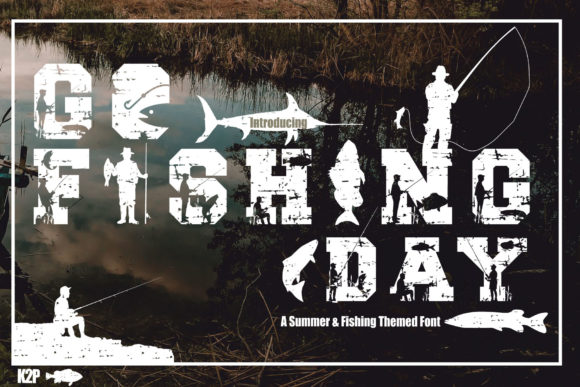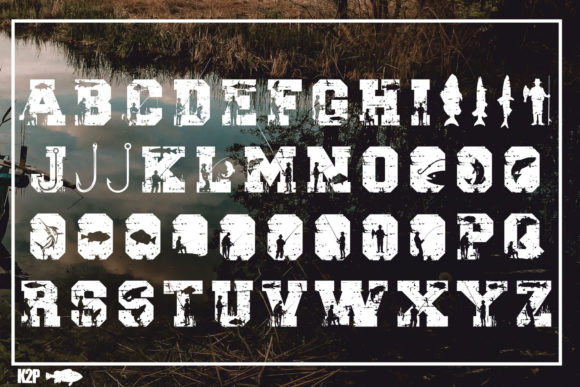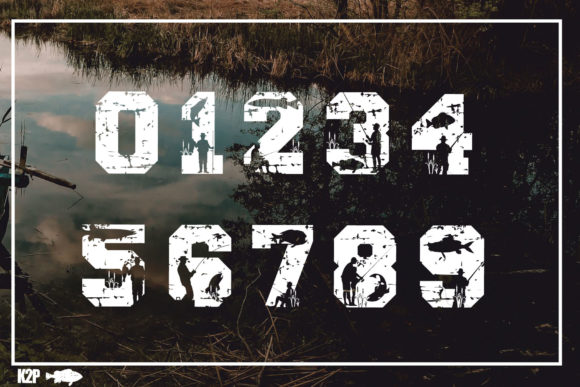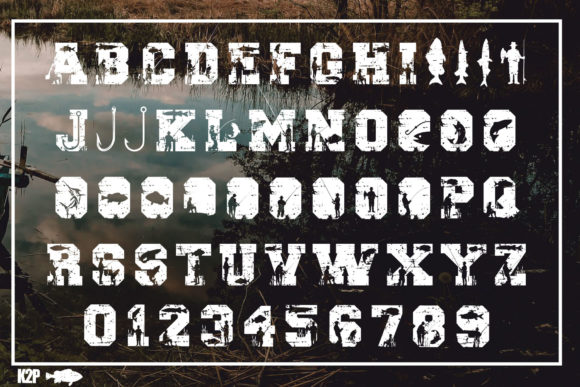
Go Fishing Day Font
The wait is over! The incredible Go Fishing Day Font is now available for your design toolkit. Go Fishing Day is a bold and assertive decorative font. It is perfect for various design ideas related to fishing, camping, or both. Have fun with this beautiful font, and explore its endless variations! This font is PUA encoded, which means you can access all of the glyphs and swashes with ease!
Go Fishing Day’s bold, assertive style makes it ideal for headlines, logos, and short, impactful text on posters or packaging related to outdoor activities. It works exceptionally well for branding projects targeting a rugged, adventurous audience. However, its decorative nature and relatively large x-height make it unsuitable for body text or UI elements requiring high readability.
Consider pairing Go Fishing Day with a clean sans-serif like Open Sans for body copy to create a strong contrast. For a more rustic feel, a complementary serif such as Playfair Display would add elegance and sophistication. Alternatively, a simple geometric sans-serif provides a modern counterpoint.
The font projects a strong, adventurous personality; it’s rugged yet friendly, conveying a sense of fun and excitement. Avoid pairing it with overly delicate or overly ornate fonts which might diminish its impactful character.